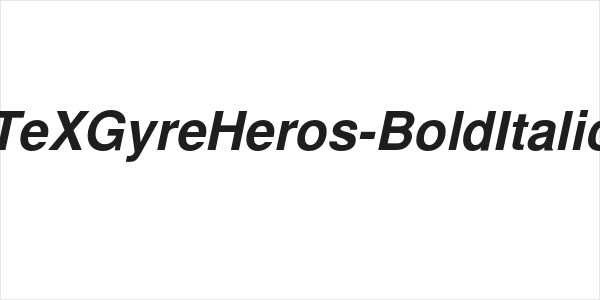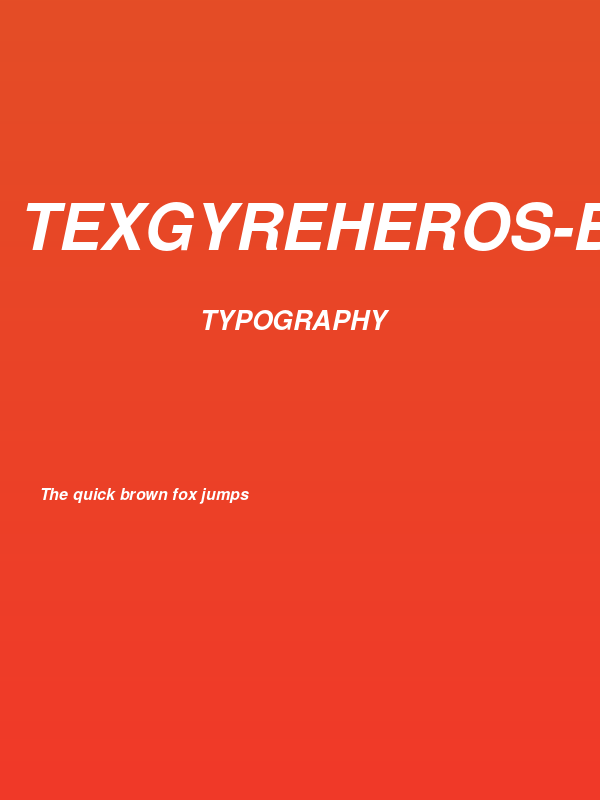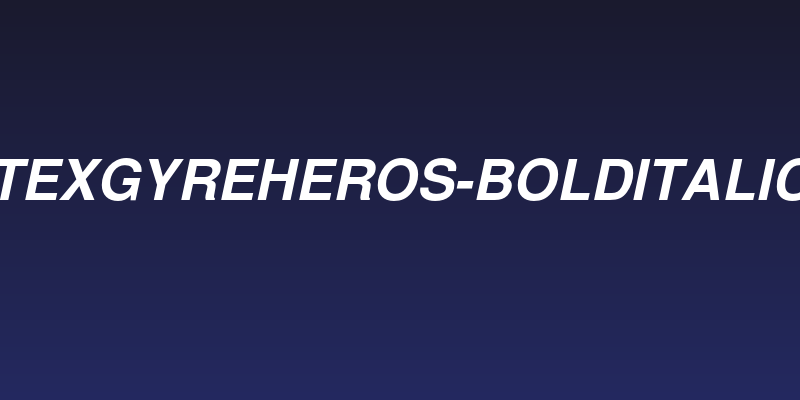
TeXGyreHeros-BoldItalic Font
TeXGyreHeros-BoldItalic Description
This font features a bold and italic style, combining strength with a dynamic slant. The characters are well-defined with a consistent stroke weight, offering a modern and professional appearance. The uppercase letters are robust and commanding, while the lowercase letters maintain readability with a slight slant that adds a touch of elegance. Numbers are clear and bold, ensuring visibility in various contexts. Special characters are distinct and maintain the font's overall bold and italicized theme, making it versatile for different design needs.
| Proposed Projects | Ideal for branding, advertising, headlines, and any project requiring a strong, modern typeface. |